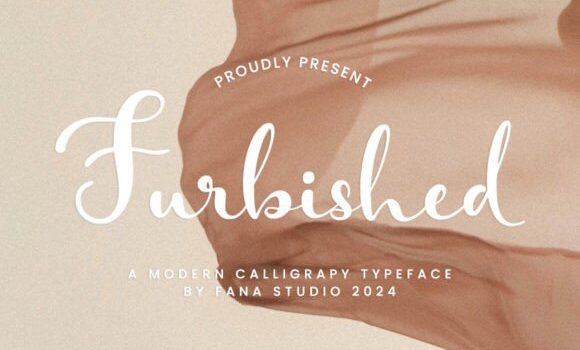
furbished
Furbished Font – Free Download Introduction to Furbished Font Furbished is a stylish handwritten script font exuding elegance and charm. 📸 Preview Gallery 6 images 📌 Product Name Furbished Font 👤 Author fanastudio 📂 Category Explore ⬇️ Download Furbished Font